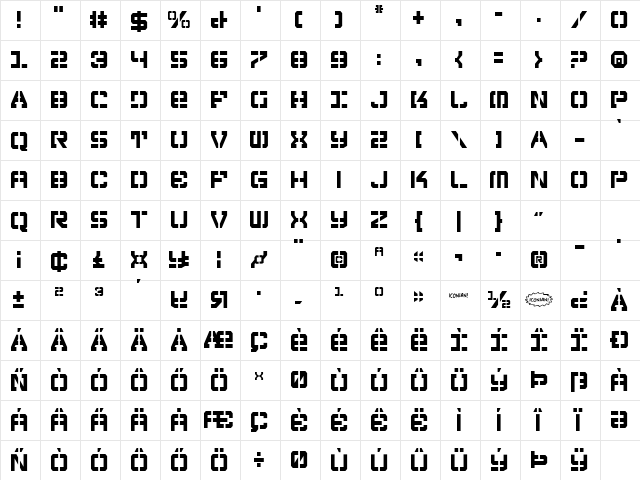
Vyper Condensed Free Font
Vyper Condensed Condensed
Design Context for Vyper Condensed
Vyper Condensed is a composed and adaptable typeface that performs quietly and consistently across a wide range of design contexts. Its narrow stance lets it pack a punch even in space-constrained designs.